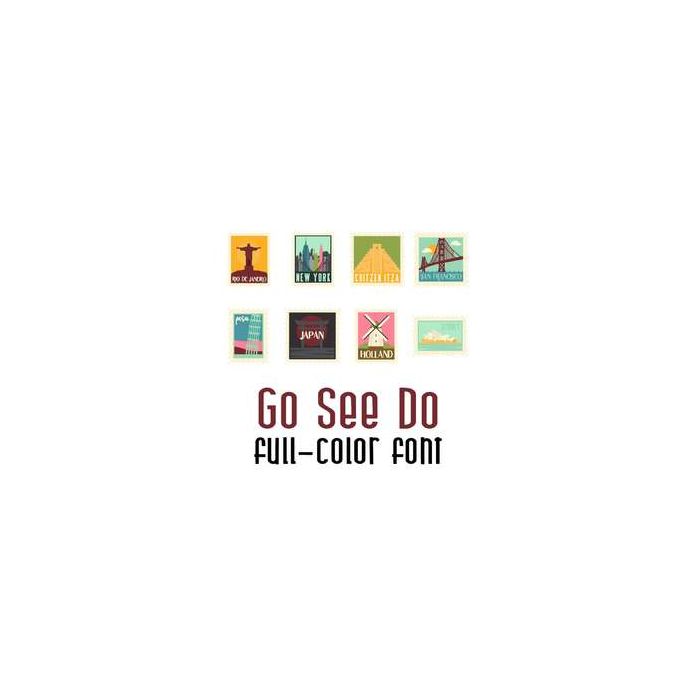
This adorable full color doodlebat font features 26 different vacation location stamps. Perfect for cards, crafts, gifts, decor, scrap book pages, planner stickers and more!